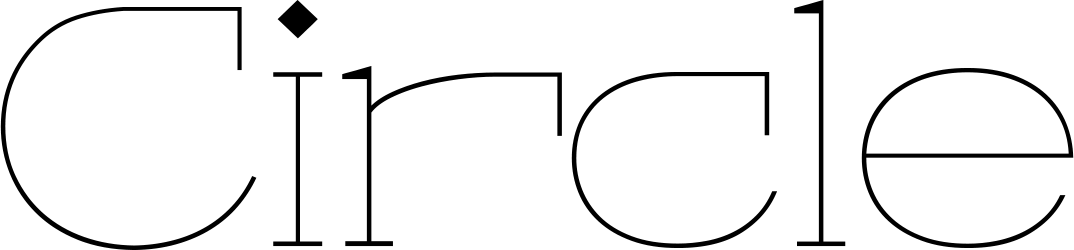
Circle Font
Some graphic artists make a few simple changes to turn a simple font into a fancy one like Circle, which conveys a sense of excitement and intimacy to the audience. Circle is a retro font that can be used to design graphic content such as logos, web pages, and posters.